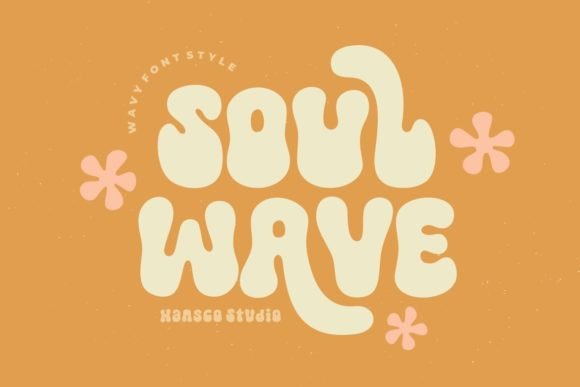
Soul Wave Font: Elevate Your Designs with a Retro Groovy Touch
In the world of typography, fonts play a crucial role in bringing creative ideas to life. One such font that has gained significant attention in recent times is the Soul Wave Font. This wavy retro groovy display font has become a favorite among designers, and for good reason. In this article, we’ll delve into the features, benefits, and uses of the Soul Wave Font, and explore how it can elevate your designs to new heights.
What is Soul Wave Font?
Soul Wave Font is a masterfully designed display font that boasts a unique, wavy retro aesthetic. Its groovy style is reminiscent of the 1960s and 1970s, evoking feelings of nostalgia and playfulness. This font is perfect for designers looking to add a special retro touch to their creative projects. Whether you’re working on a logo, packaging design, or social media post, Soul Wave Font is sure to make your design stand out.
Key Features of Soul Wave Font
- Wavy Retro Style: Soul Wave Font features a unique, wavy design that’s perfect for creating retro-inspired designs.
- Groovy Aesthetic: The font’s groovy style is reminiscent of the 1960s and 1970s, making it ideal for designs that require a nostalgic touch.
- Display Font: Soul Wave Font is a display font, making it perfect for headlines, titles, and other prominent design elements.
- Highly Versatile: This font can be used for a wide range of design projects, from logotypes and stickers to packaging designs and social media posts.
Benefits of Using Soul Wave Font
So, why should you choose Soul Wave Font for your design projects? Here are just a few benefits of using this amazing font:
- Adds a Retro Touch: Soul Wave Font’s wavy retro style adds a unique and eye-catching element to any design.
- Enhances Creativity: The font’s groovy aesthetic inspires creativity and can help you think outside the box when it comes to design.
- Perfect for Branding: Soul Wave Font is ideal for creating memorable brand identities that stand out from the crowd.
Use Cases for Soul Wave Font
Soul Wave Font is an incredibly versatile font that can be used for a wide range of design projects. Here are some use cases to get you started:
- Logotypes: Use Soul Wave Font to create a memorable and eye-catching logo for your brand.
- Stickers and Packaging Designs: Add a retro touch to your stickers and packaging designs with this unique font.
- Cricut Projects: Soul Wave Font is perfect for Cricut projects, such as custom vinyl decals and iron-on designs.
- Headlines and Posters: Use this font to create attention-grabbing headlines and posters that stand out.
- Brand Identity: Create a cohesive brand identity with Soul Wave Font, perfect for use across various marketing materials.
- T-Shirt and Apparel Designs: Add a groovy touch to your t-shirt and apparel designs with this font.
- Magazines and Books: Use Soul Wave Font to add a touch of nostalgia to your magazine or book designs.
- Social Media Graphics: Create eye-catching social media graphics with this font, perfect for Instagram, YouTube, and more.
- Websites: Use Soul Wave Font to add a unique touch to your website’s design, perfect for headlines and titles.
Tips for Using Soul Wave Font
To get the most out of Soul Wave Font, here are some tips to keep in mind:
- Experiment with Colors: Soul Wave Font looks great in a variety of colors, so don’t be afraid to experiment and find the perfect hue for your design.
- Play with Sizes: This font looks great in various sizes, from small to large, so play around to find the perfect size for your design.
- Combine with Other Fonts: Soul Wave Font pairs well with other fonts, so try combining it with a sans-serif font for added contrast.
- Use for Headlines: This font is perfect for headlines and titles, so use it to add a touch of personality to your design.
In conclusion, Soul Wave Font is an amazing display font that can add a retro groovy touch to any design project. Its wavy retro style and groovy aesthetic make it perfect for designers looking to create unique and eye-catching designs. With its versatility and ease of use, Soul Wave Font is sure to become a favorite among designers. So why wait? Download Soul Wave Font today and elevate your designs to new heights!